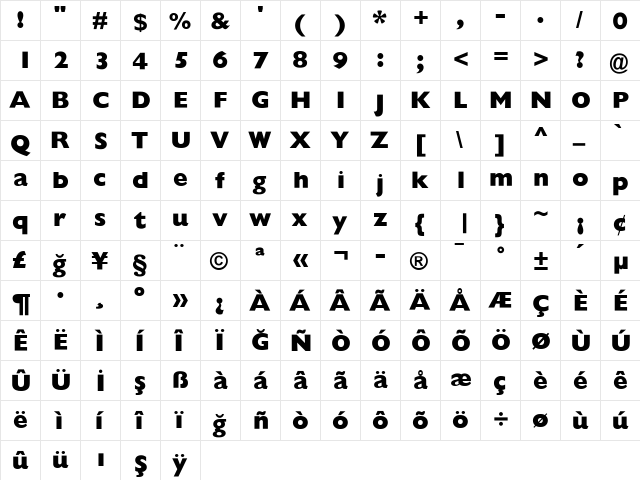
GillSansExtraBold Regular
Design Context for GillSansExtraBold Typeface
GillSansExtraBold offers clean, dependable letterforms without strong stylistic allegiance, making it a practical choice for designers who need flexibility. The heavy weight commands attention and anchors typographic hierarchies.